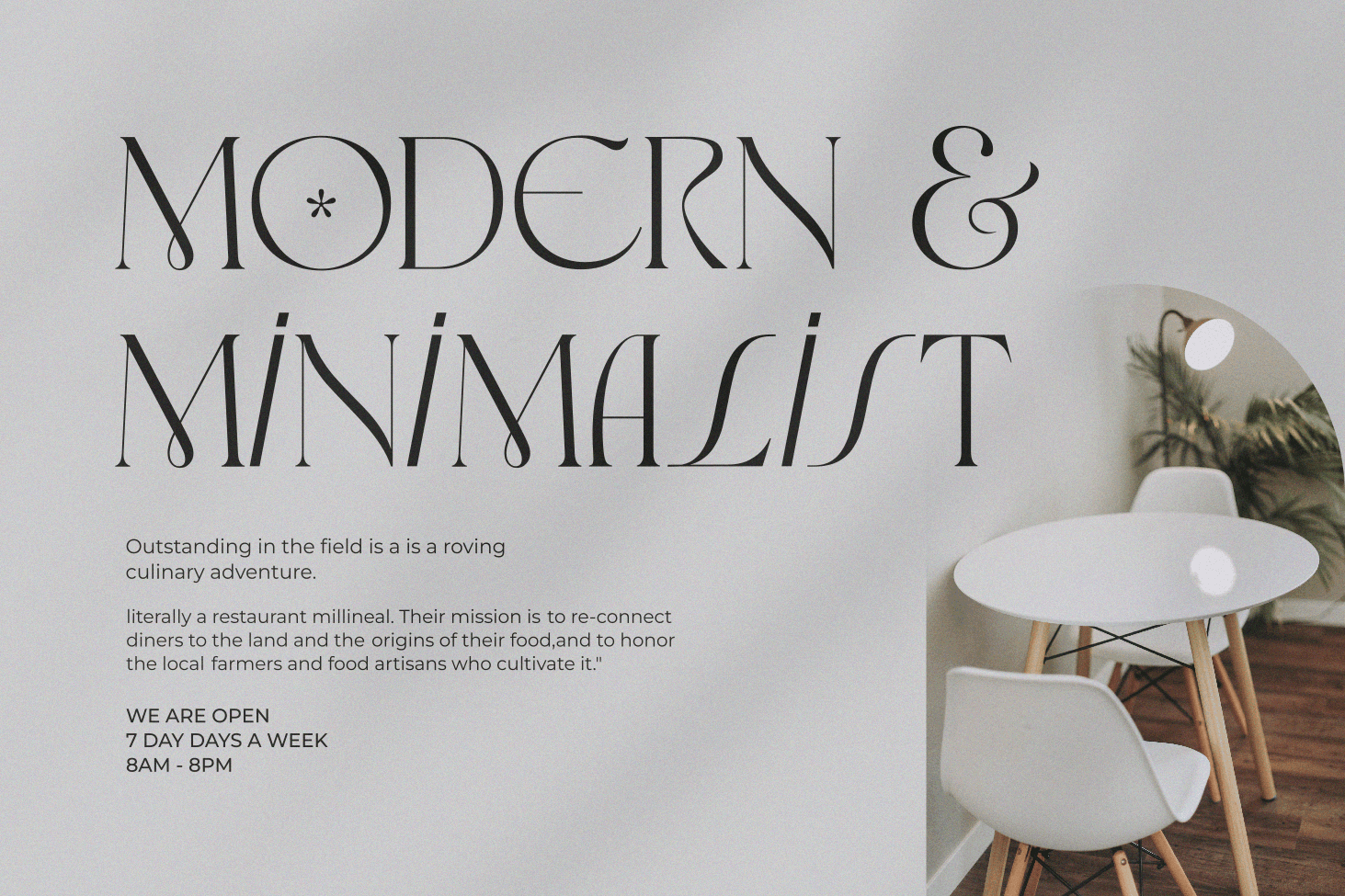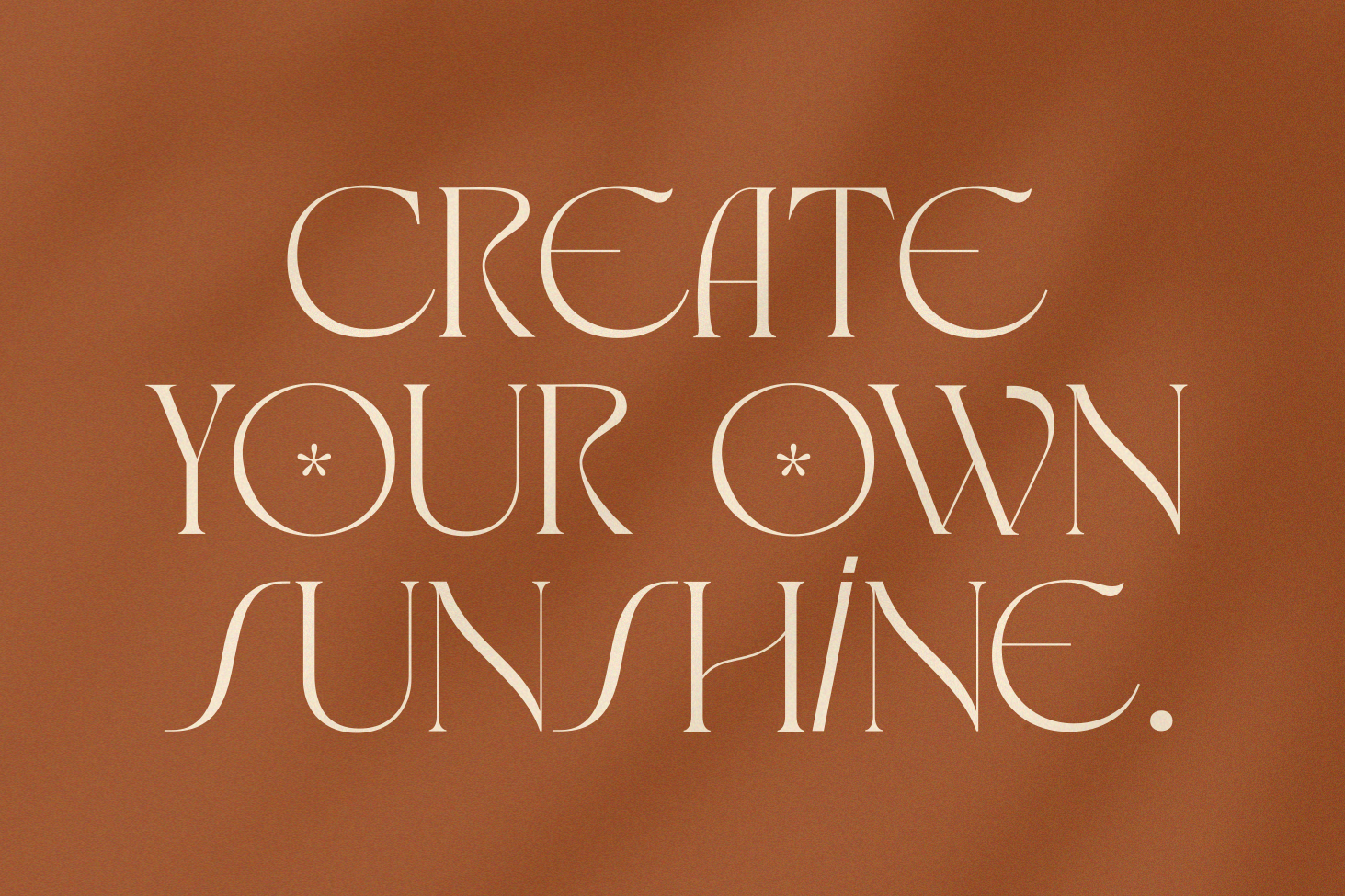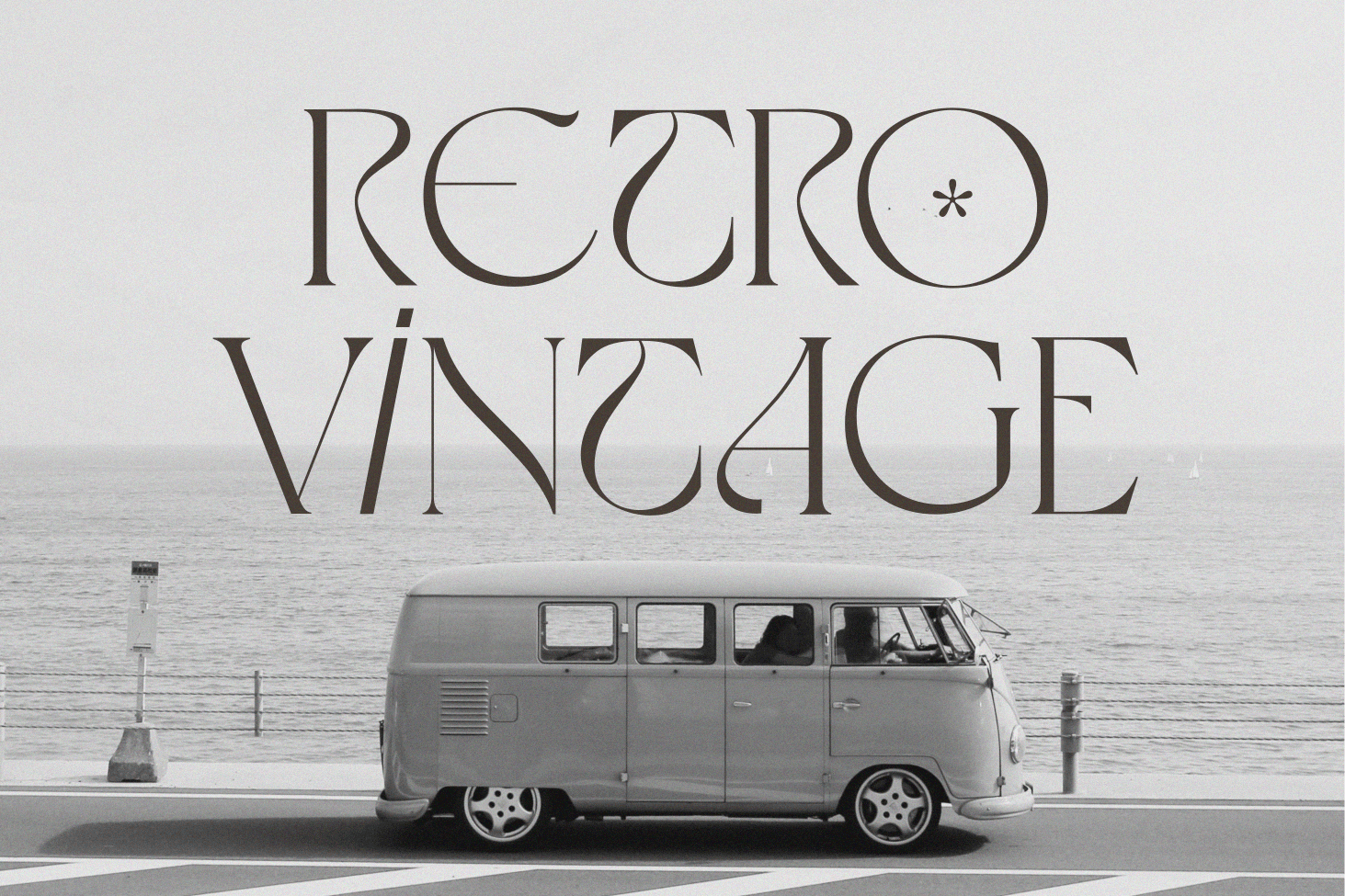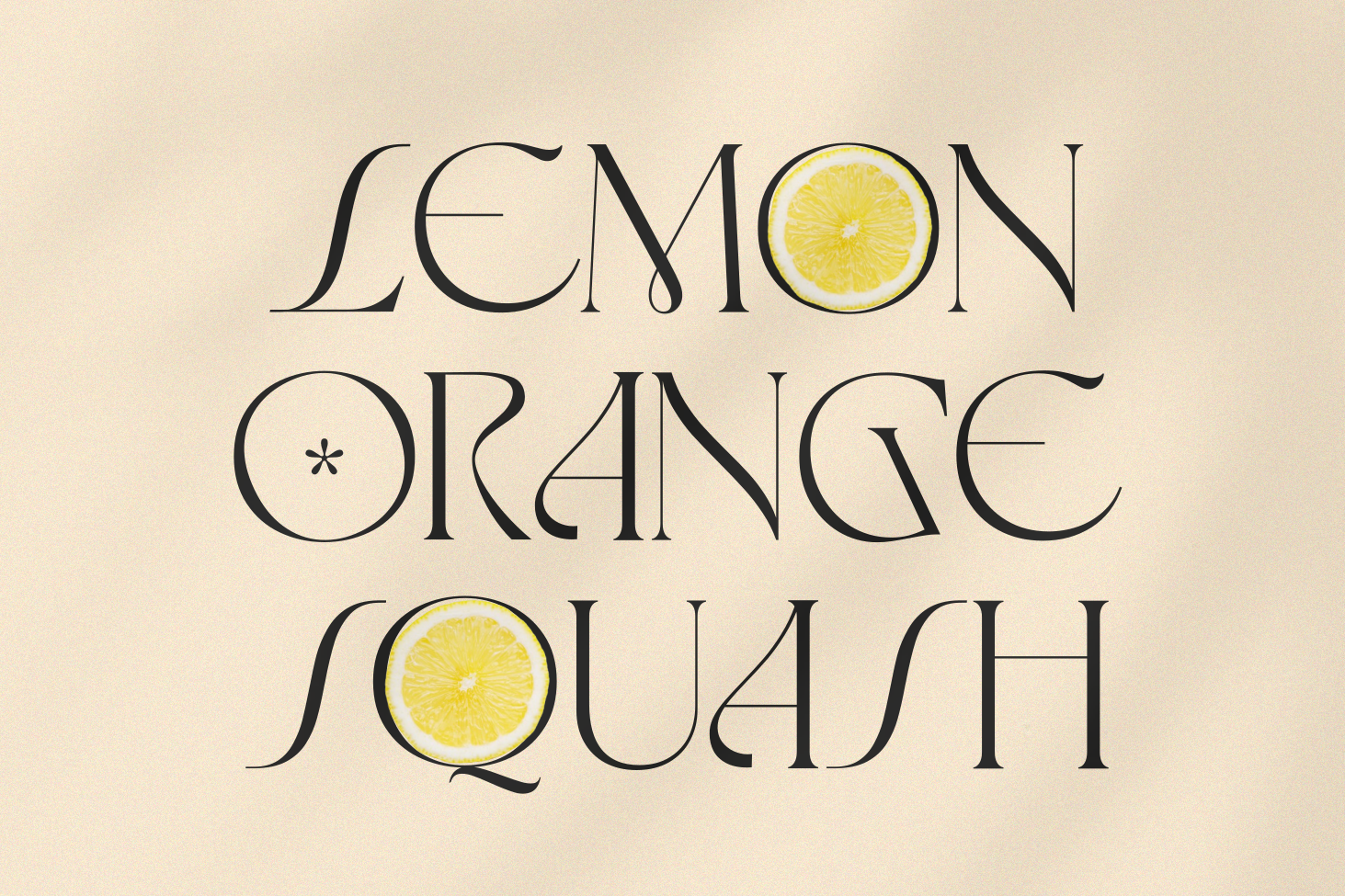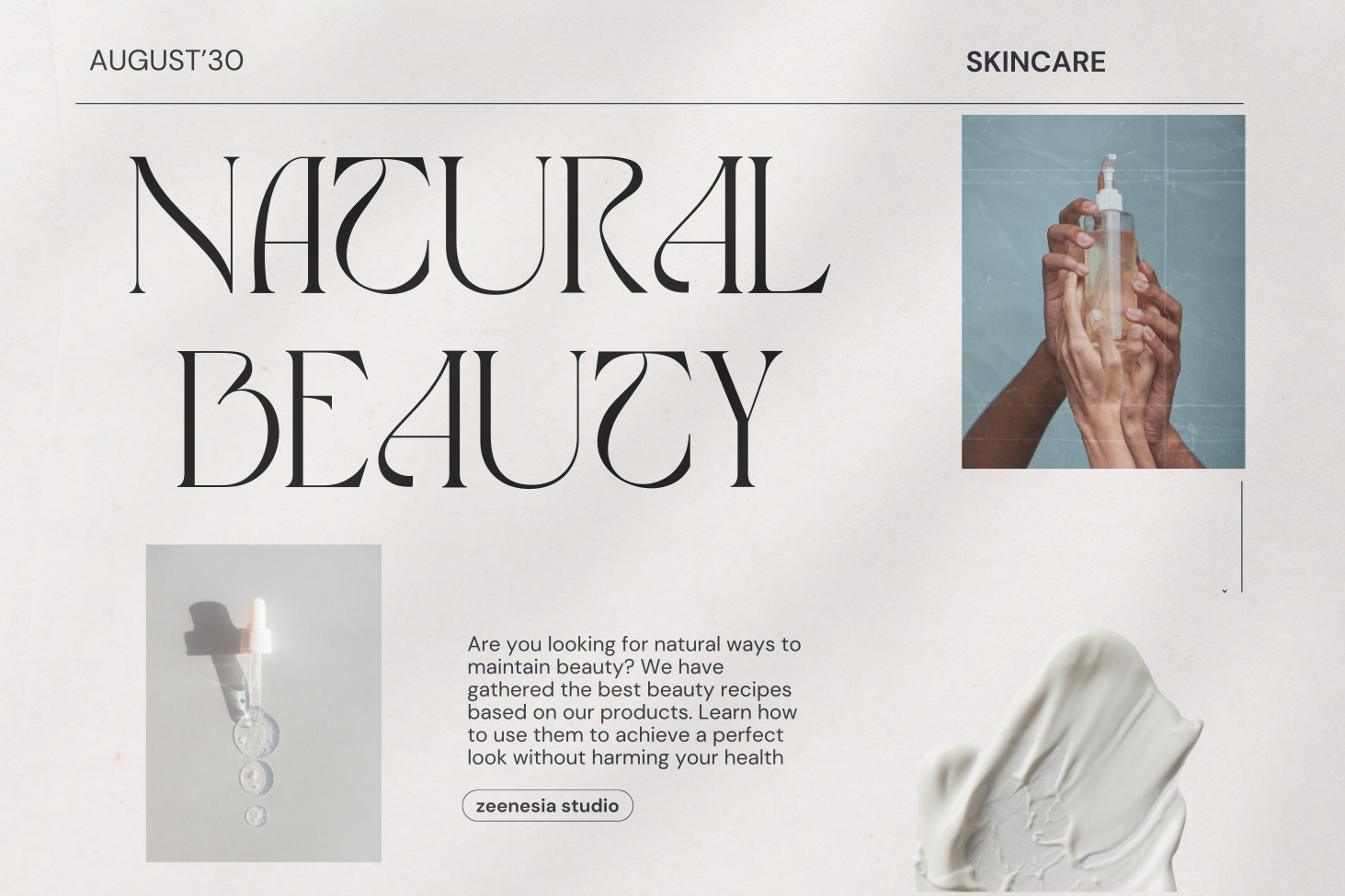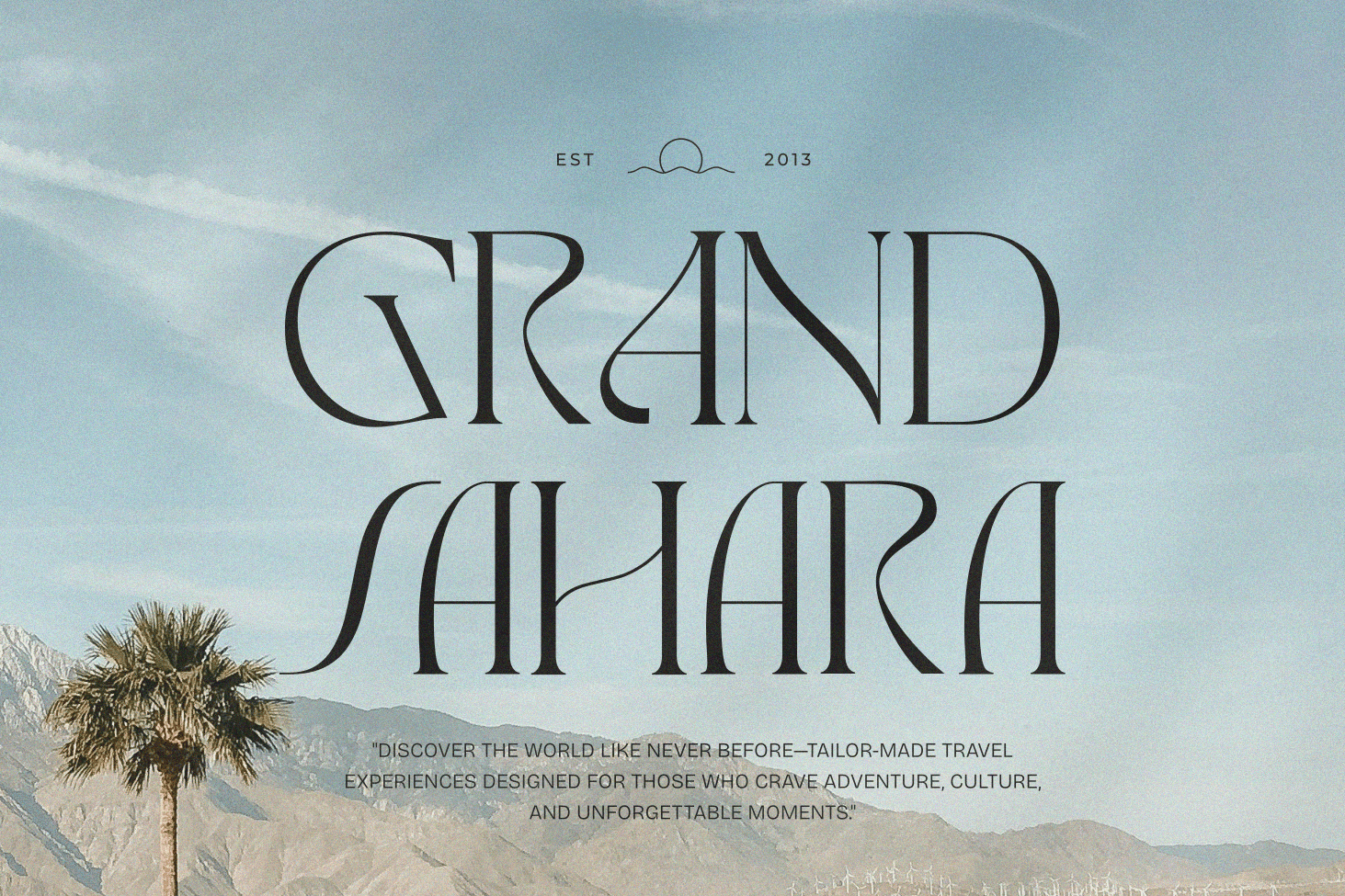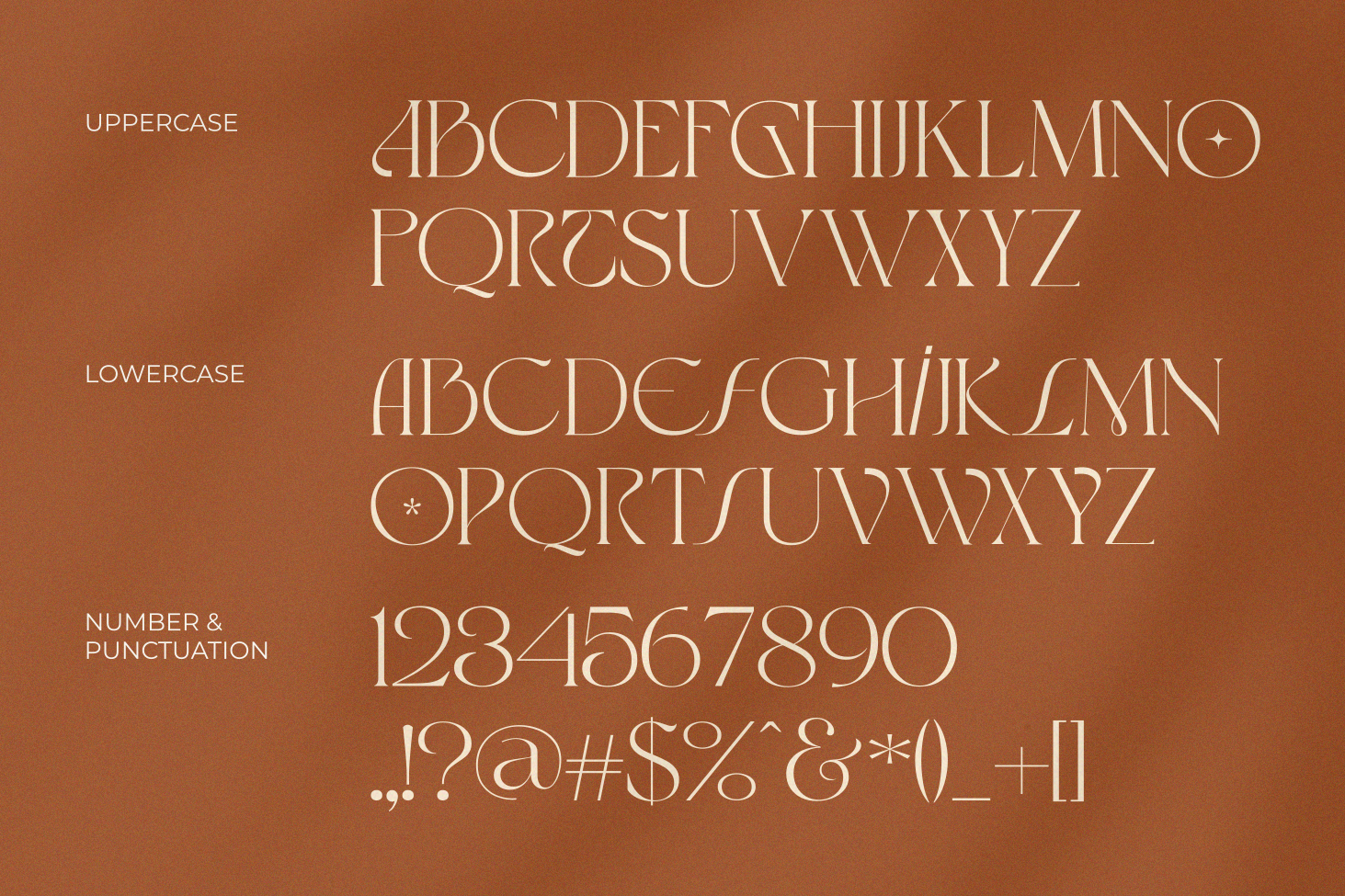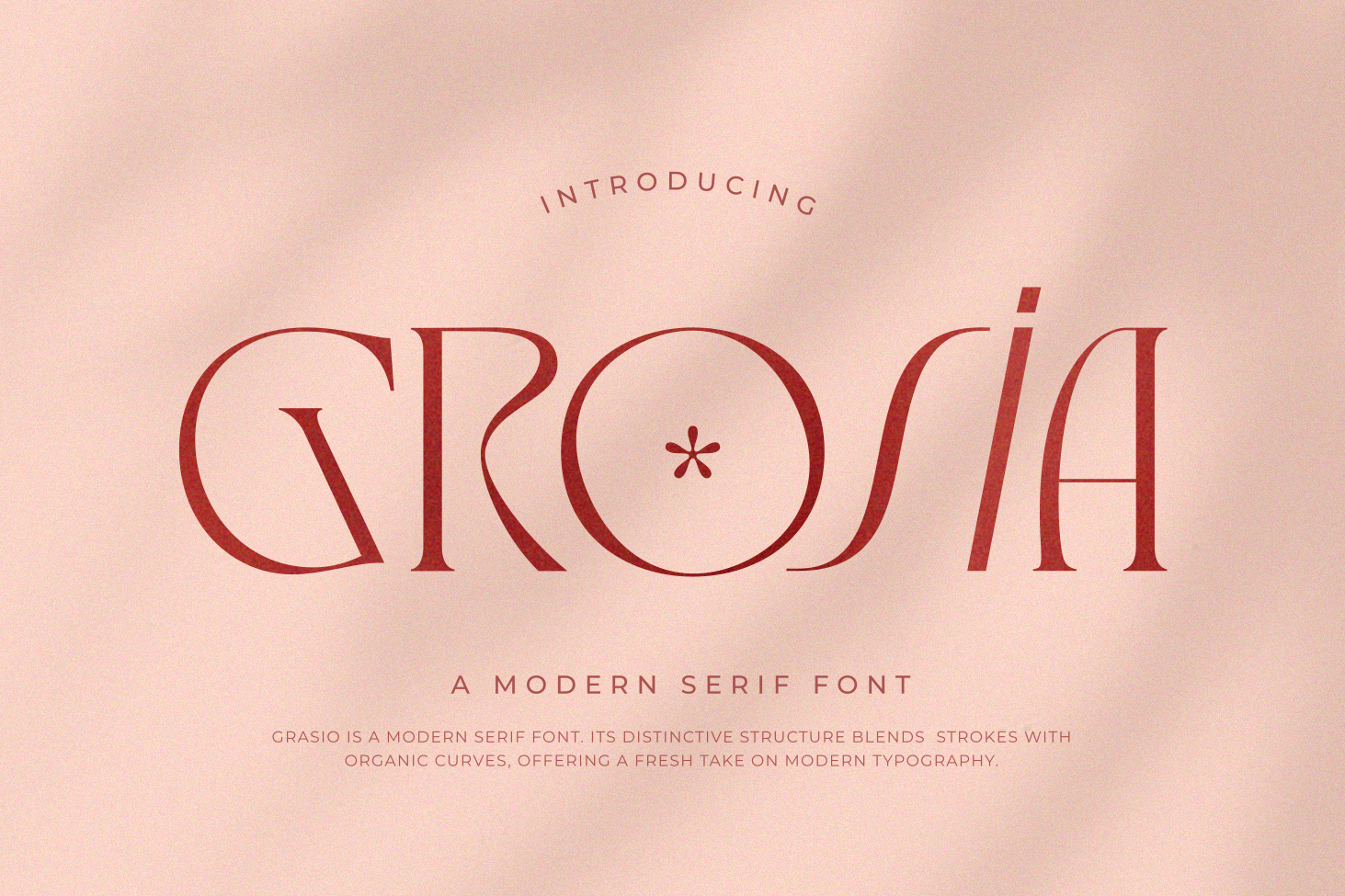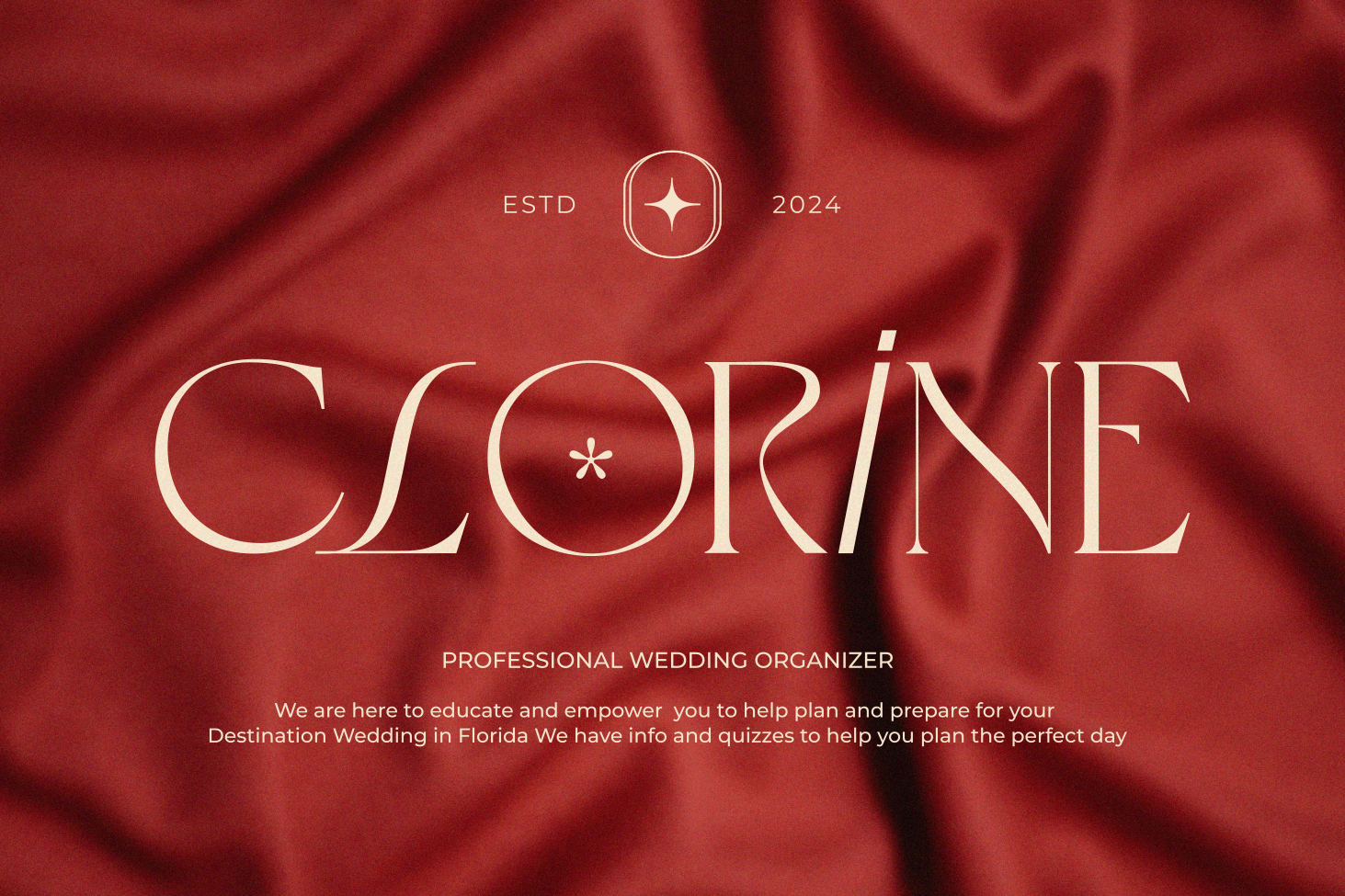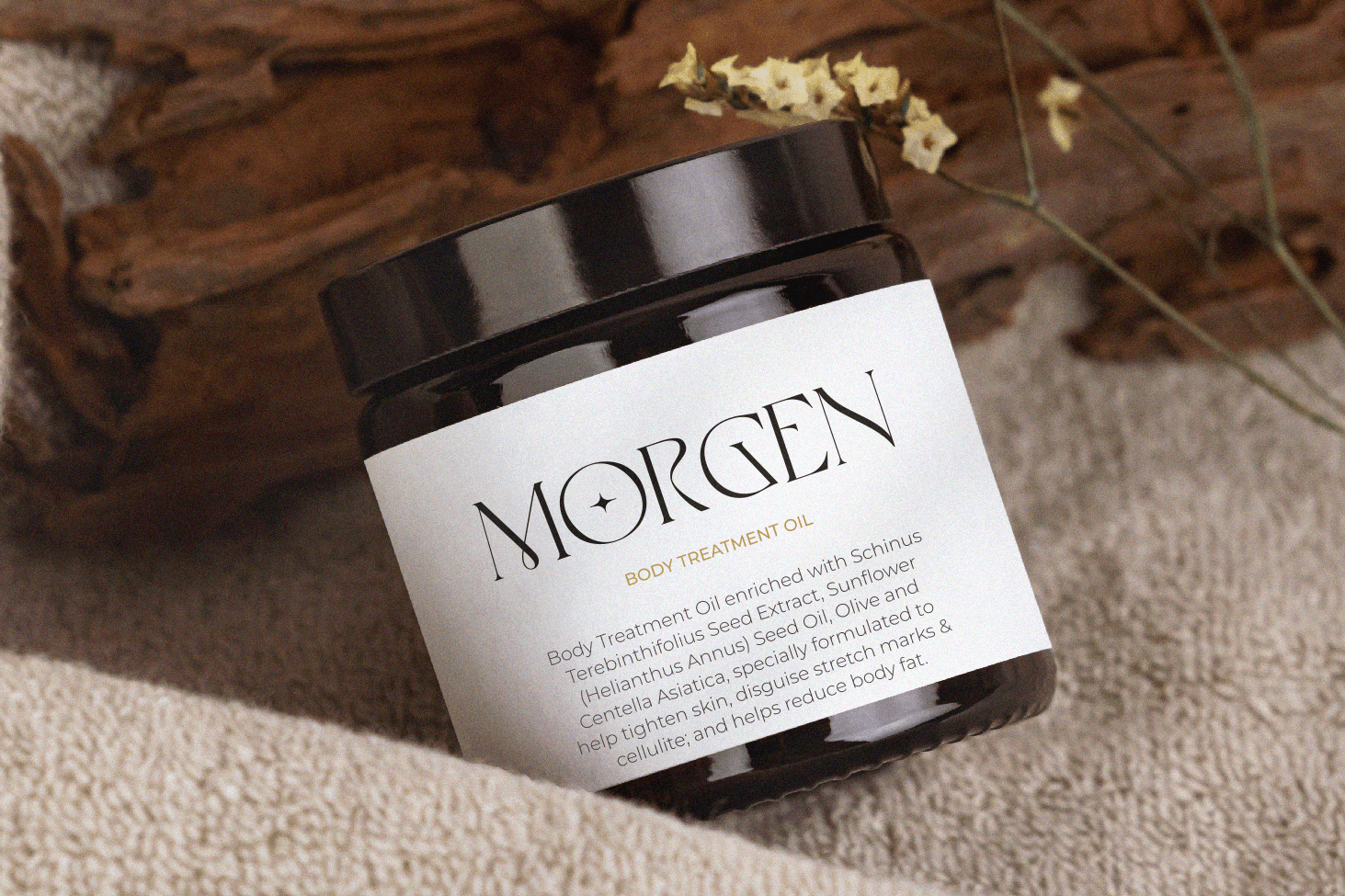
Grosia
Presenting Grosia created by zeenesia, an enchantingly feminine serif font, exquisitely crafted to add a dash of romance and charm to your designs. Perfect for a myriad of applications, from digital design and presentations to handmade crafts and delightful greeting cards, Grosia's allure captivates and enchants, swiftly becoming an indispensable element in your creative tool kit. Its alluring aesthetics wonderfully embellish your creations, ensuring they make a memorable mark regardless of the occasion. Its appealing visuals enhance your work, promising to leave a distinct impression irrespective of the context.